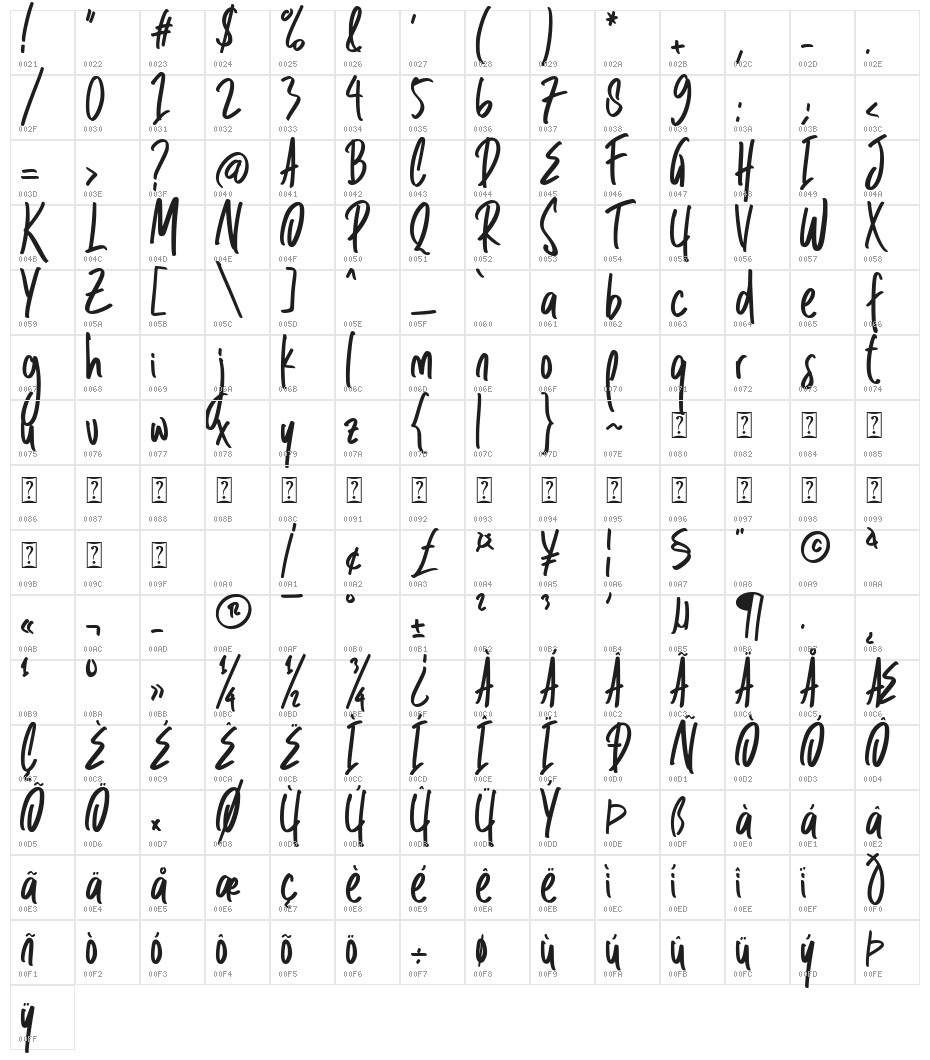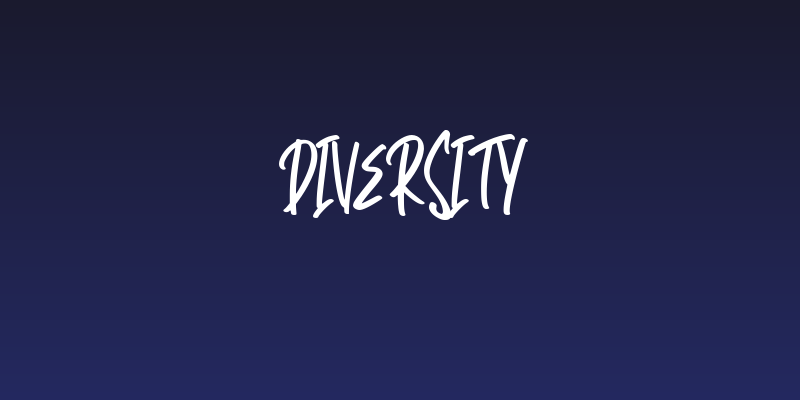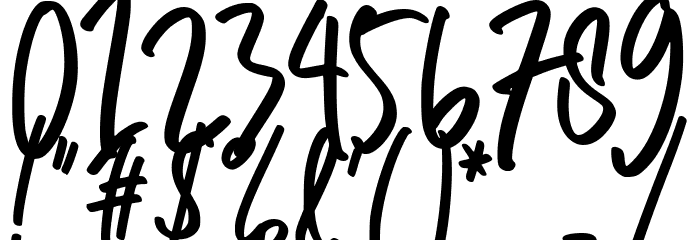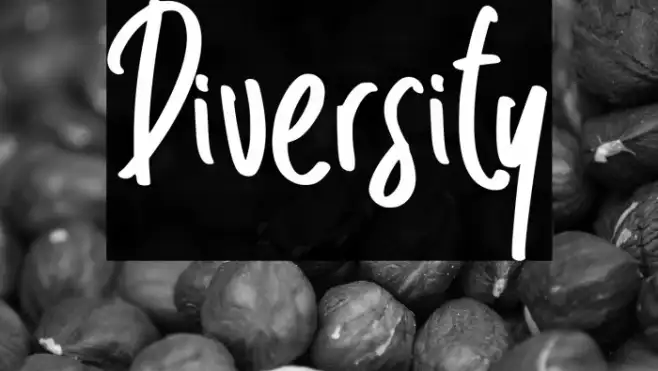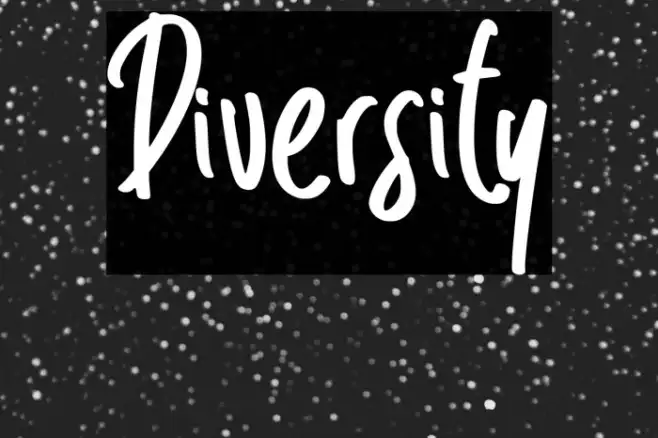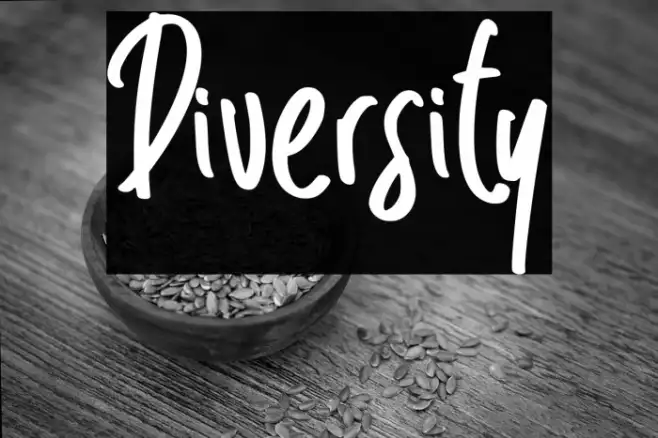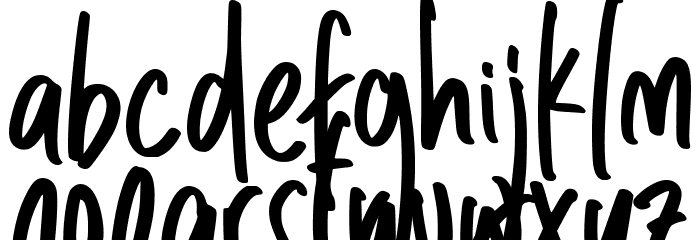
Diversity Font
Diversity Description
This font exhibits a lively and energetic handwritten style, characterized by its bold and expressive strokes. The letters are slightly slanted, adding a dynamic feel to the text. The uppercase and lowercase letters maintain a consistent flow, with some letters featuring unique loops and curves that enhance its playful nature. The numbers and special characters are equally expressive, ensuring a cohesive look across all elements. The overall appearance is informal and artistic, making it suitable for creative projects that require a personal touch.
| Proposed Projects | Ideal for greeting cards, artistic posters, personal branding, and creative social media graphics. |